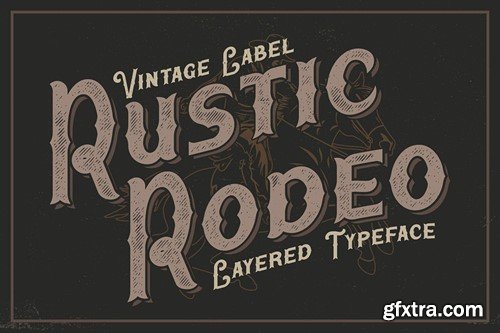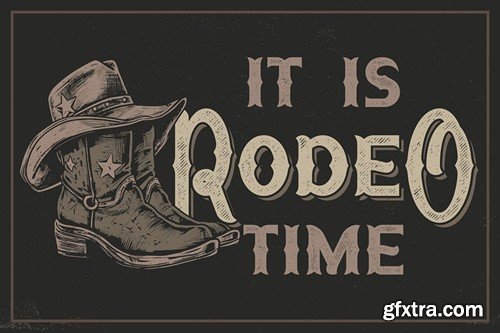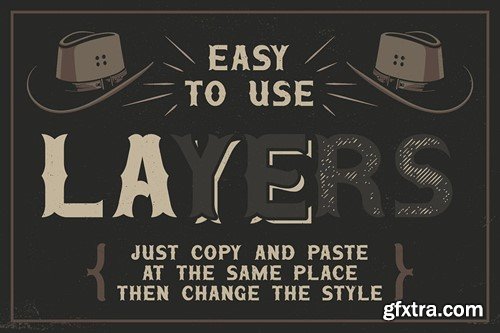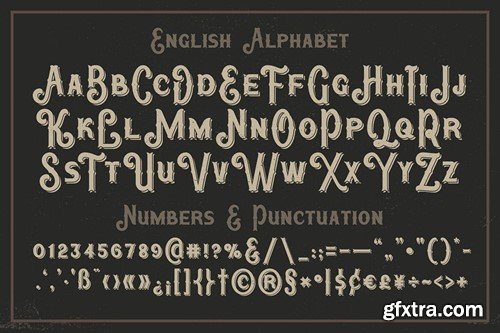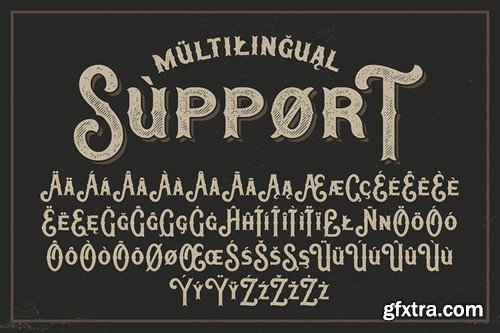
Rustic Rodeo Display Font
Unique, creative, vintage & decorative serif font. Comes with multilingual support & various font styles - great for your new logo or branding project. For any help regarding this file, please feel free to contact me through my profile page!